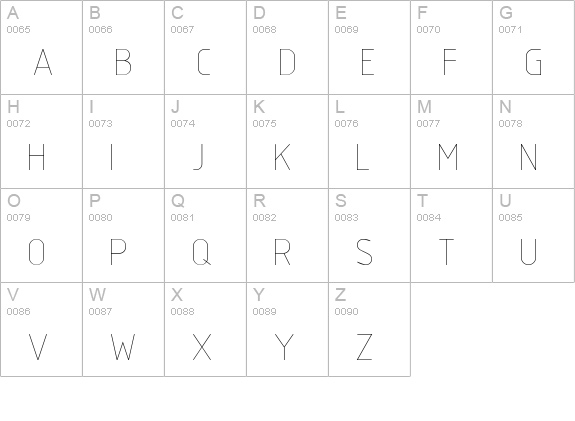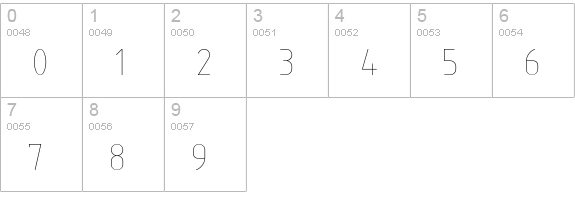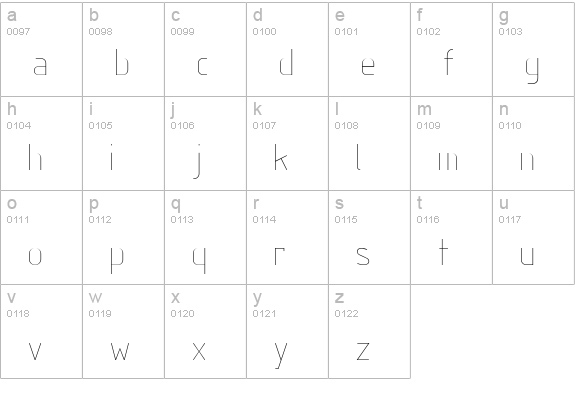
ISOCP2 Font Details
ISOCP2 font is a stunning typeface that exudes a sense of modernity and sophistication. Its sleek and clean lines make it perfect for a wide range of design projects, from logos and branding to websites and print materials. This font is not only visually appealing but also highly versatile, making it suitable for both professional and personal use. Whether you're creating a professional document or designing a personal invitation, ISOCP2 font will add a touch of elegance and professionalism to your work. One of the best features of ISOCP2 font is that it is available for free. That's right, you can download this amazing font without spending a single penny. It is freely available to download at FontsMarket.com, a trusted source for high-quality fonts. With its stylish and contemporary design, ISOCP2 font is sure to make a lasting impression on anyone who comes across it. Its unique combination of modernity and simplicity makes it a standout choice for designers and creatives looking to add a touch of sophistication to their projects. Whether you're a professional designer or someone who simply appreciates good typography, ISOCP2 font is a must-have in your font collection. Download it for free from FontsMarket.com and elevate your designs to new heights.